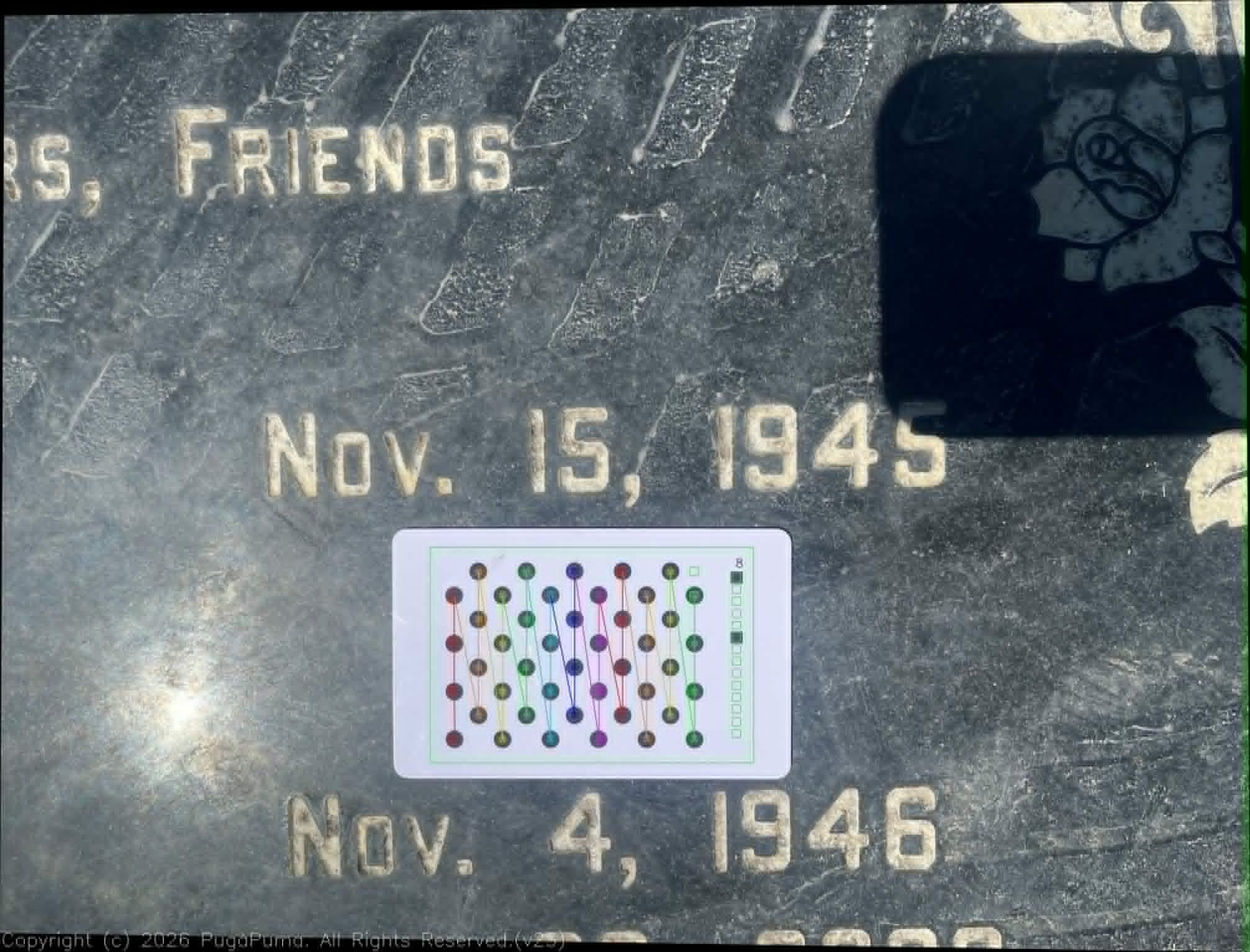
Unfortunately, this is an unknown block/splayed corner font, and I do not see this particular version in any industry font catalogs. However, it is likely a custom monument industry font and not something from the print industry.